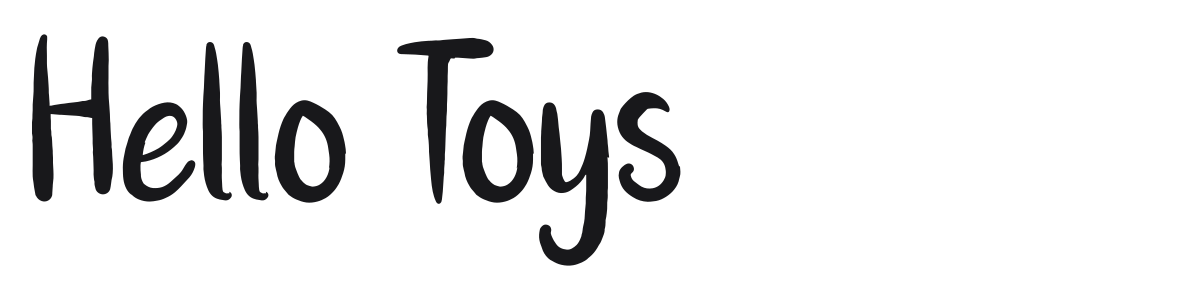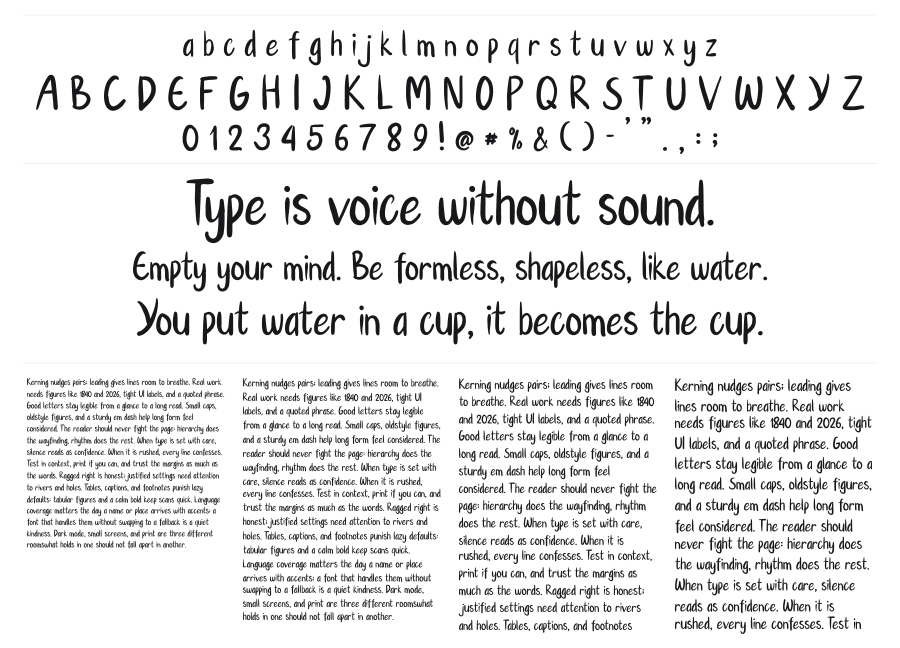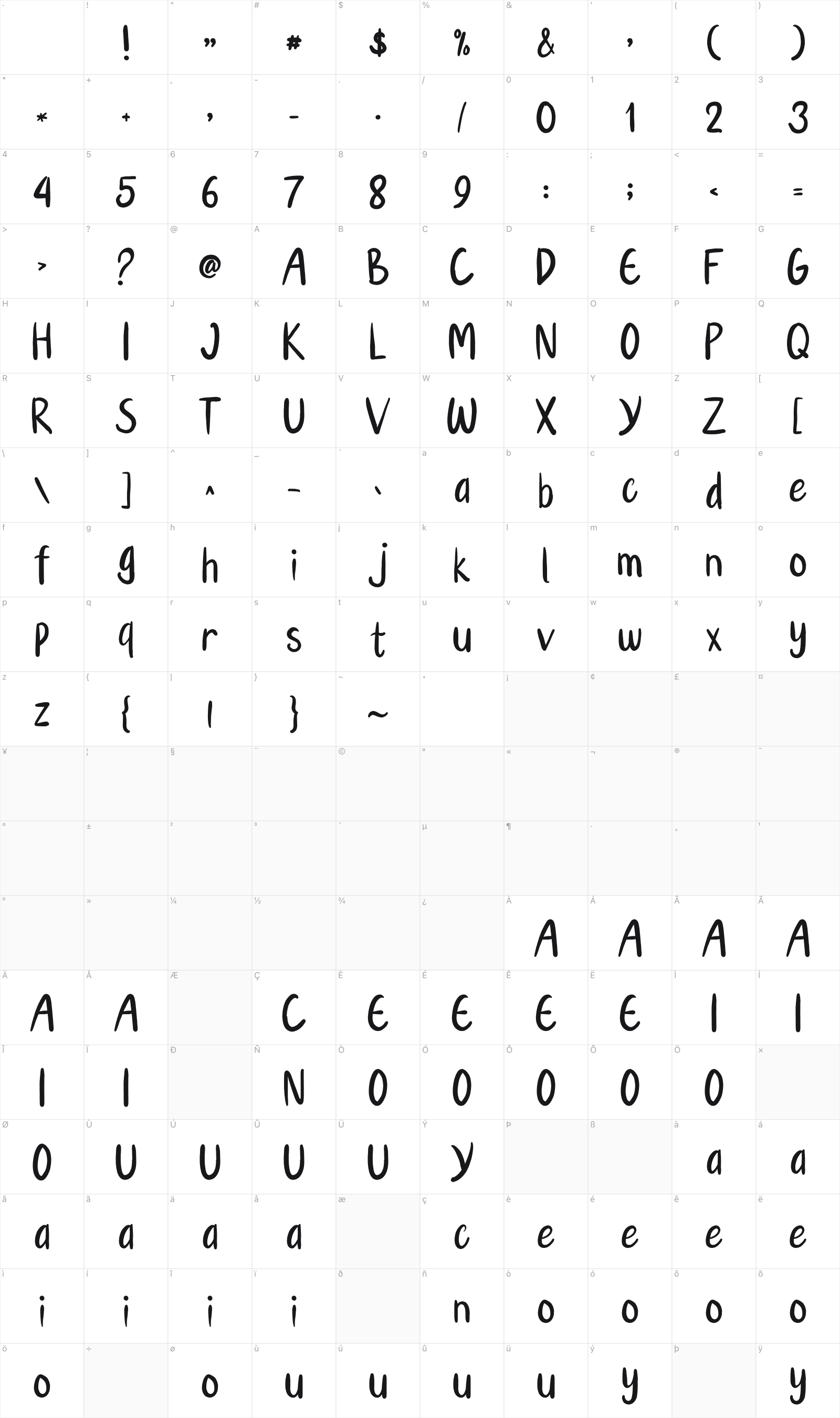
Hello Toys
Hello Toys is a casual upright script with rounded, hand-lettered strokes and a warm, spontaneous feel. The near-monoweight construction and softly irregular shapes give it a genuine hand-drawn quality without feeling rough or unpolished. It suits children's products, casual branding, and any context that needs approachable, cheerful energy.